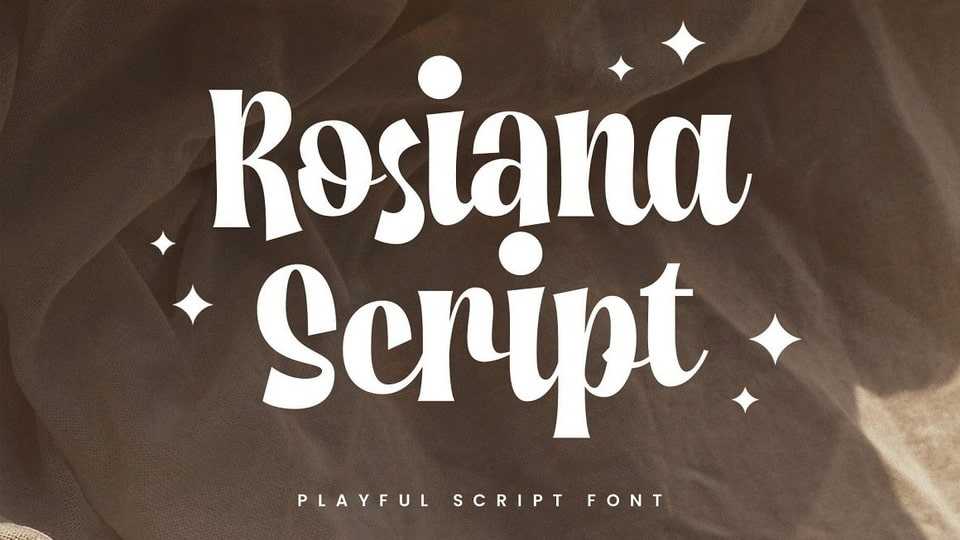
Download Rosiana Script font, a bold, fun, cheerful and slightly bouncy typeface that are sure to bring your design projects to life. Rosiana Script font is designed with a fun, exciting, and dynamic shape perfect for use on headlines, storefronts, flyers, stickers, logotypes, storefronts, merchandise, quotes, and more.